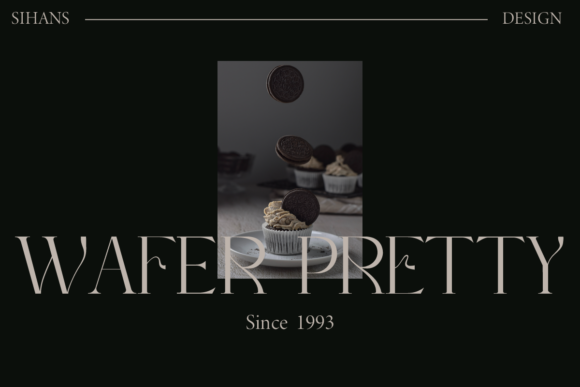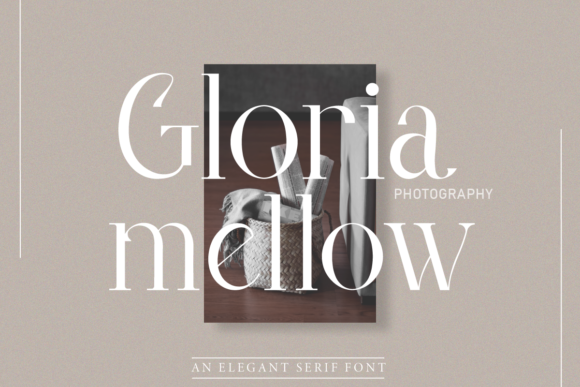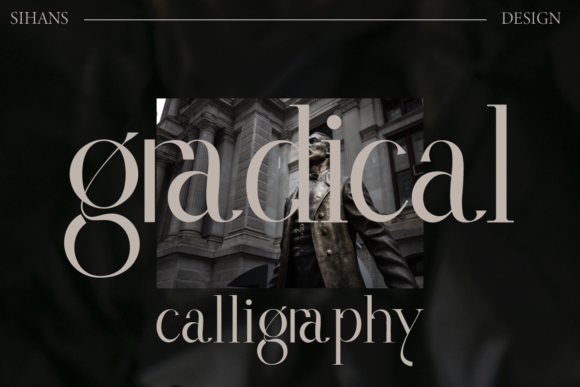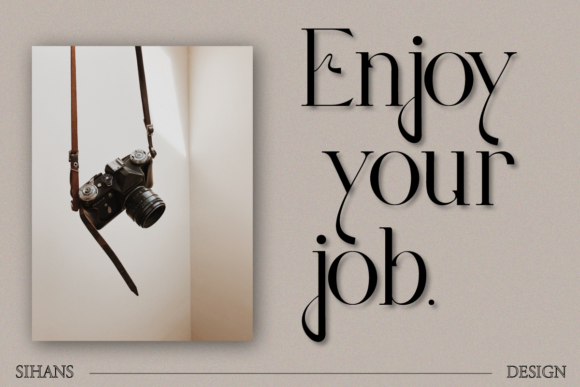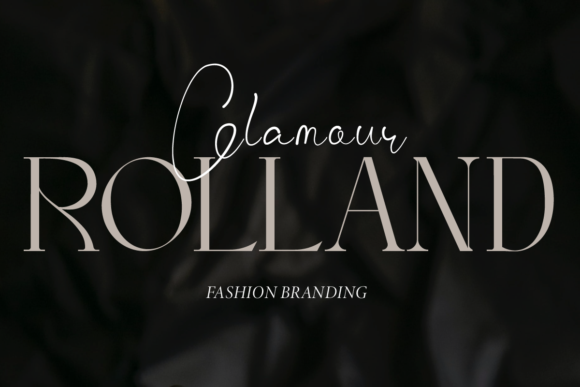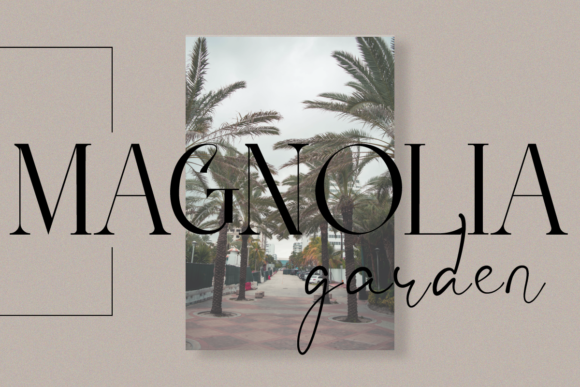
Introduction to Missay Font
Missay is an elegant and classic serif font.
Simple and easy to use, this font will be very beautiful if you mix it with your various craft designs This font is PUA encoded which means you can access all of the glyphs and swashes with ease.